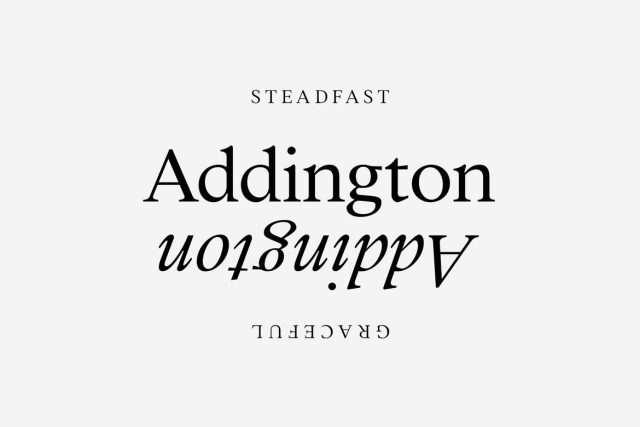
Addington CF beautiful serif font family
Reliable and workmanlike on the surface, Addington CF opens up and comes alive with its character and attention to detail. Beautiful yet practical – a versatile typeface with elements of calligraphy, traditional serifs, and new ideas – Addington is a trusty go-to serif. Excellent for text large and small, complete with 6 weights, italics, and OpenType features.
Seven weights
Roman and italic sets
Advanced OpenType features
Latin alphabet